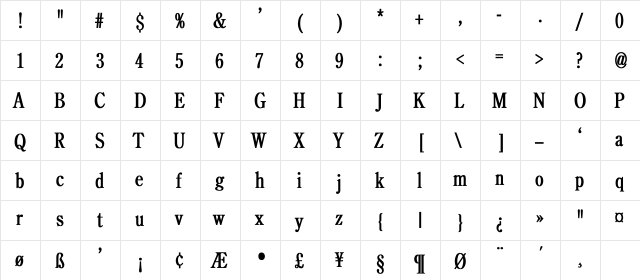
CenturyOldStyle-Light Condensed Bold Font Preview
Design Context for CenturyOldStyle-Light Condensed Typeface
CenturyOldStyle-Light Condensed carries the refined structure of traditional serif typography, with bracketed terminals and considered proportions that communicate credibility and craft. The heavy weight commands attention and anchors typographic hierarchies. Its narrow stance lets it pack a punch even in space-constrained designs.